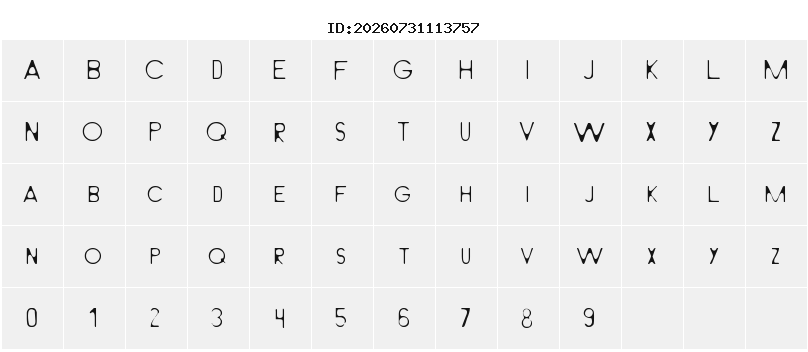
Light From Behind Preview
• Font Name: Light From Behind
• Full Font Name: Light From Behind
• Designer: Yuliyan Ilev
About Light From Behind.ttf
Light From Behind.ttf is a modern, elegant sans-serif font designed for ultimate readability and visual harmony. Perfect for branding, headlines, web design, and print materials.